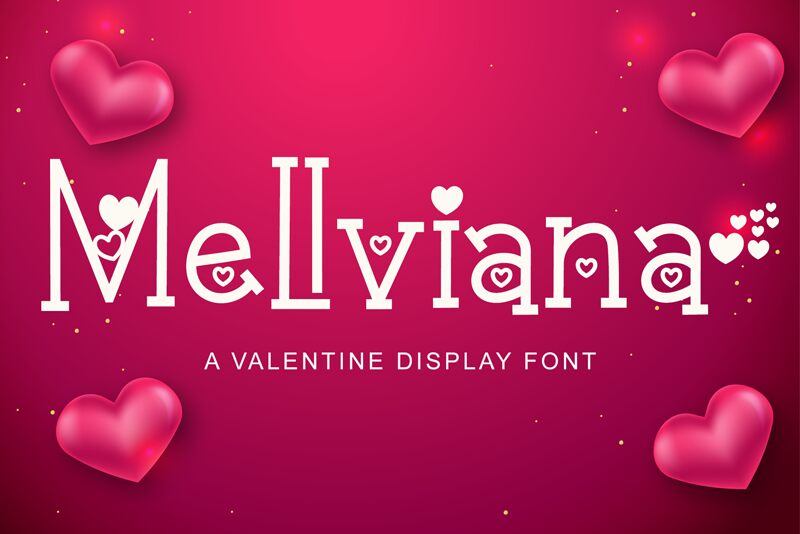
Mellviana
Mellviana font, designed by AEN Creative Studio, is a slab serif font that beautifully balances elegance and romance. With a whimsical touch and decorative elements, it offers a contemporary flair that captivates eyes and engages readers at the first look.
This enchanting typeface is free to use and fits perfectly for wedding design projects like invitations, greeting cards, love-themed posters, apparel designs, diary covers etc. Decorate your website or apps with timeless headings or bring charm to your social media with engaging posts!